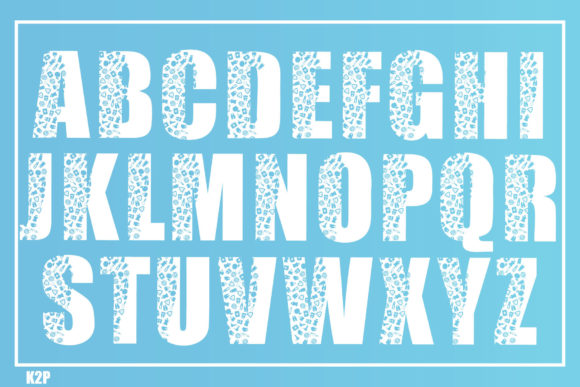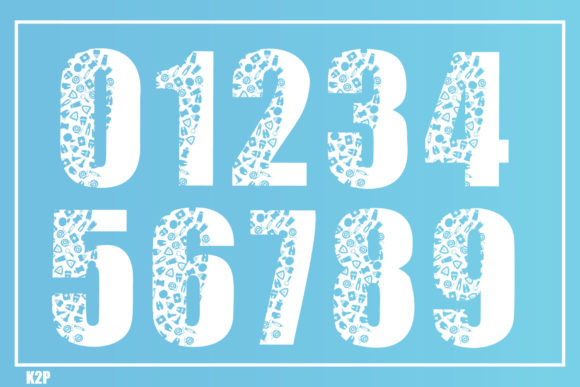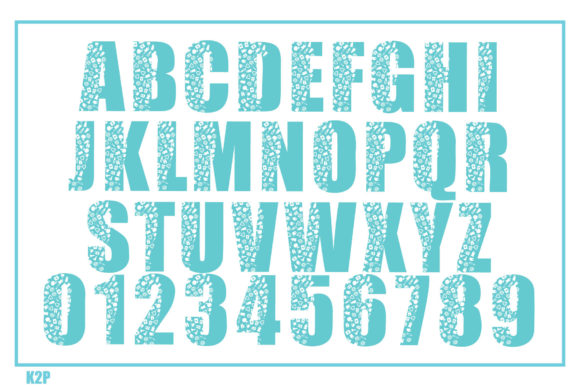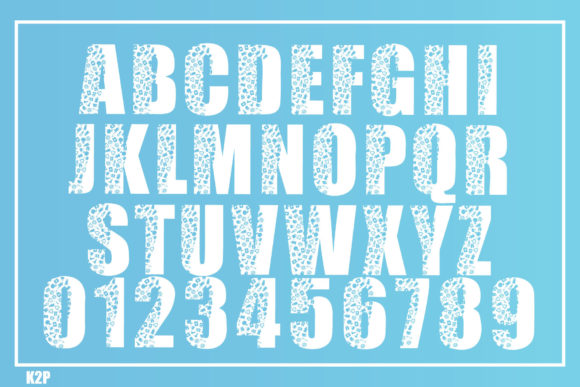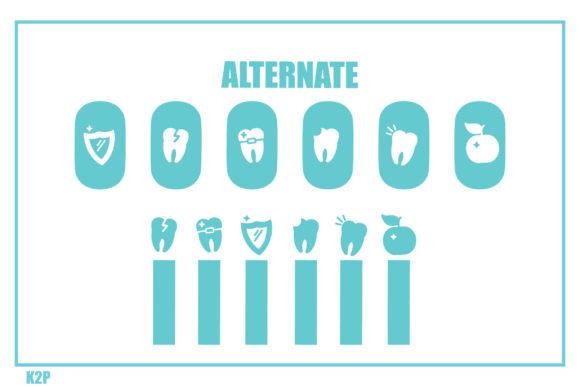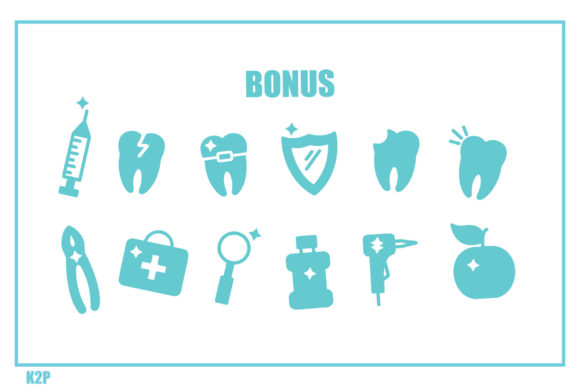
Dental Font: The Ultimate Decorative Font for Designers and Crafters
Are you a designer or crafter looking for a unique and eye-catching font to elevate your designs? Look no further than the Dental Font! This thick lettered and incredibly unique decorative font is perfect for various design ideas, particularly those related to dentist appointments or magazine covers.
What Makes Dental Font So Special?
The Dental Font is a standout font that offers a range of features that make it perfect for designers and crafters. Here are just a few of the things that make it so special:
- Thick Lettering: The Dental Font features thick, bold lettering that is sure to grab attention. Whether you’re designing a logo, brochure, or social media graphic, this font is sure to make a statement.
- Unique Decorative Style: The Dental Font has an incredibly unique decorative style that sets it apart from other fonts. Its distinctive look is perfect for designers and crafters who want to add a touch of personality to their designs.
Uses for Dental Font
The Dental Font is a versatile font that can be used for a wide range of design ideas. Here are just a few examples of how you can use this font:
- Dentist Appointments: The Dental Font is perfect for designing materials for dentist appointments, such as brochures, flyers, and business cards.
- Magazine Covers: The font’s unique decorative style makes it perfect for designing eye-catching magazine covers that are sure to stand out on newsstands.
- Social Media Graphics: The Dental Font is also great for designing social media graphics, such as Facebook posts, Instagram stories, and Twitter headers.
- Logos and Branding: The font’s bold, attention-grabbing style makes it perfect for designing logos and branding materials for businesses and organizations.
Tips for Using Dental Font
Here are a few tips for using the Dental Font in your designs:
- Experiment with Different Sizes: The Dental Font looks great in a range of sizes, from small and subtle to large and bold. Experiment with different sizes to find the one that works best for your design.
- Pair with Other Fonts: The Dental Font pairs well with a range of other fonts, from simple sans serifs to more decorative scripts. Experiment with different font combinations to find the one that works best for your design.